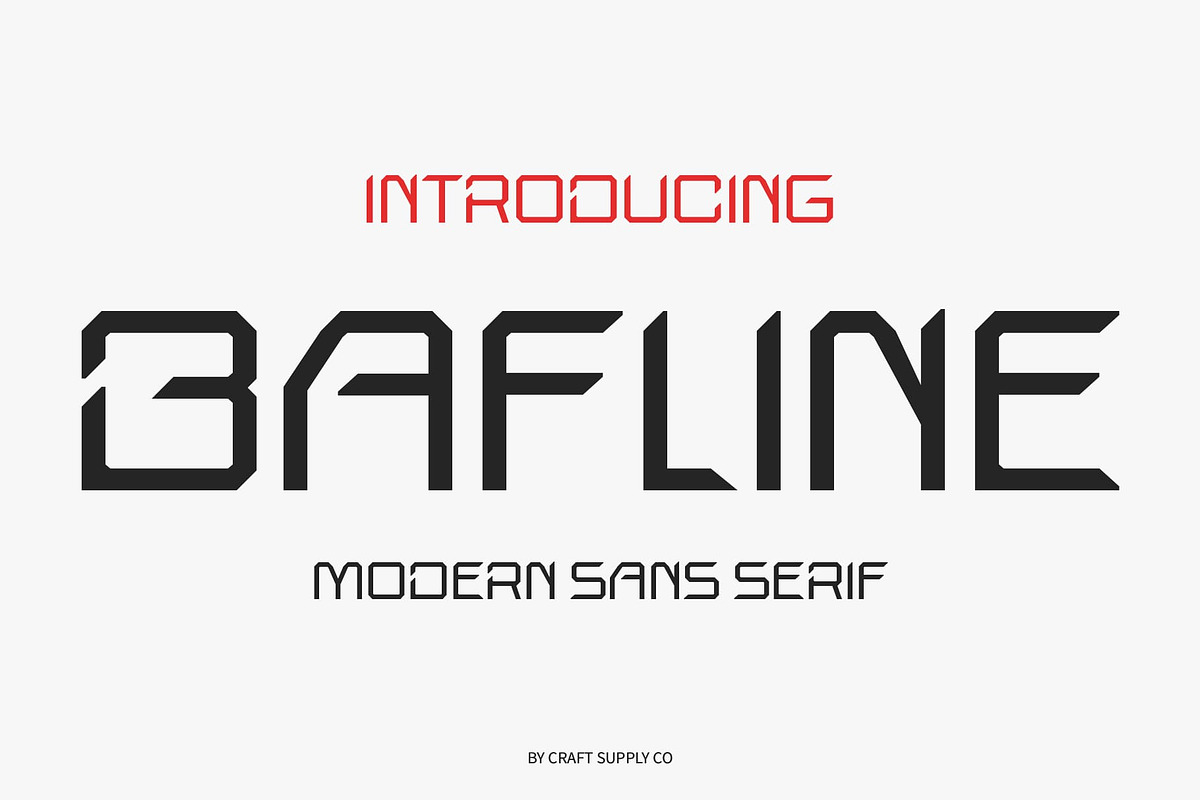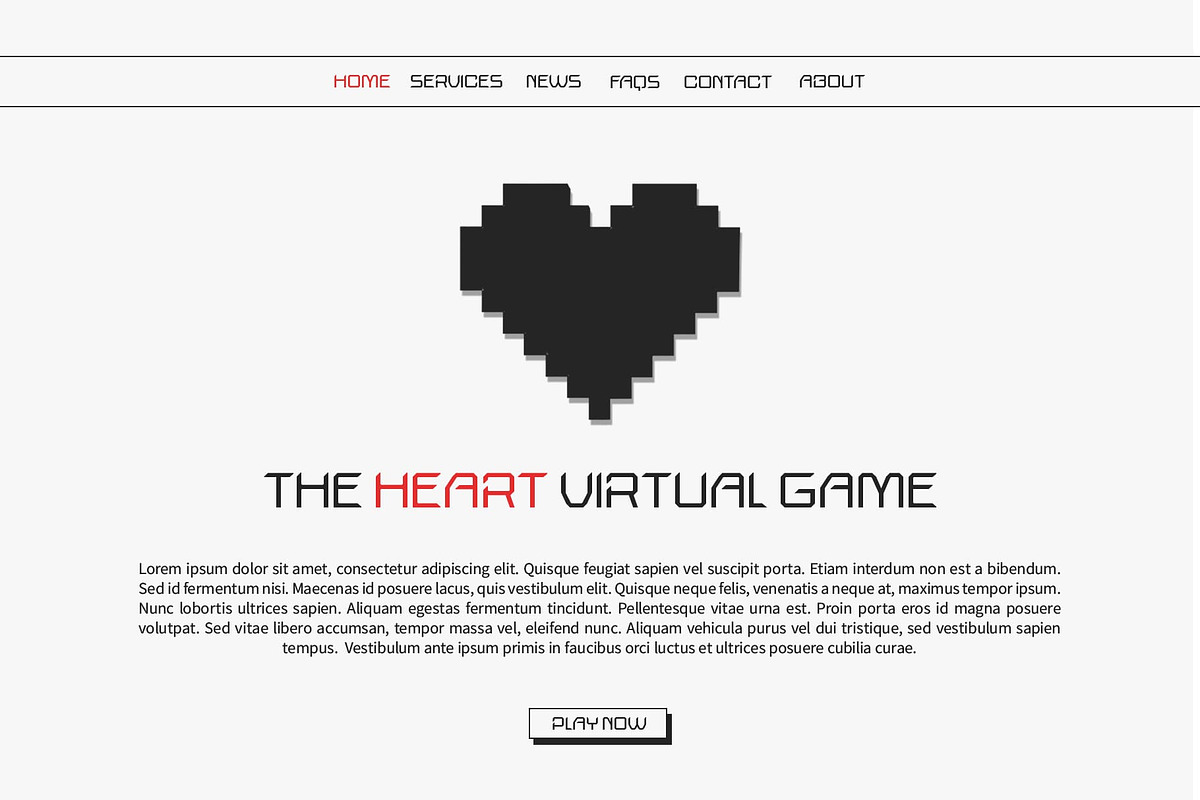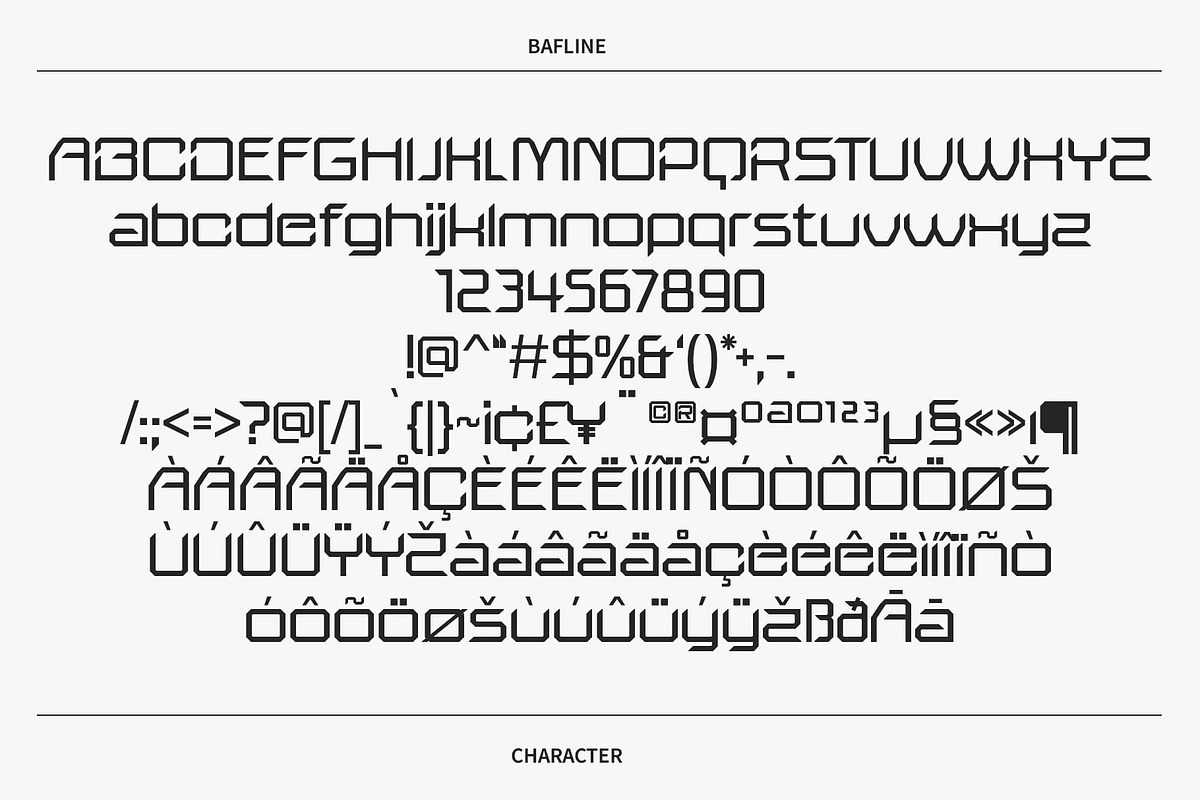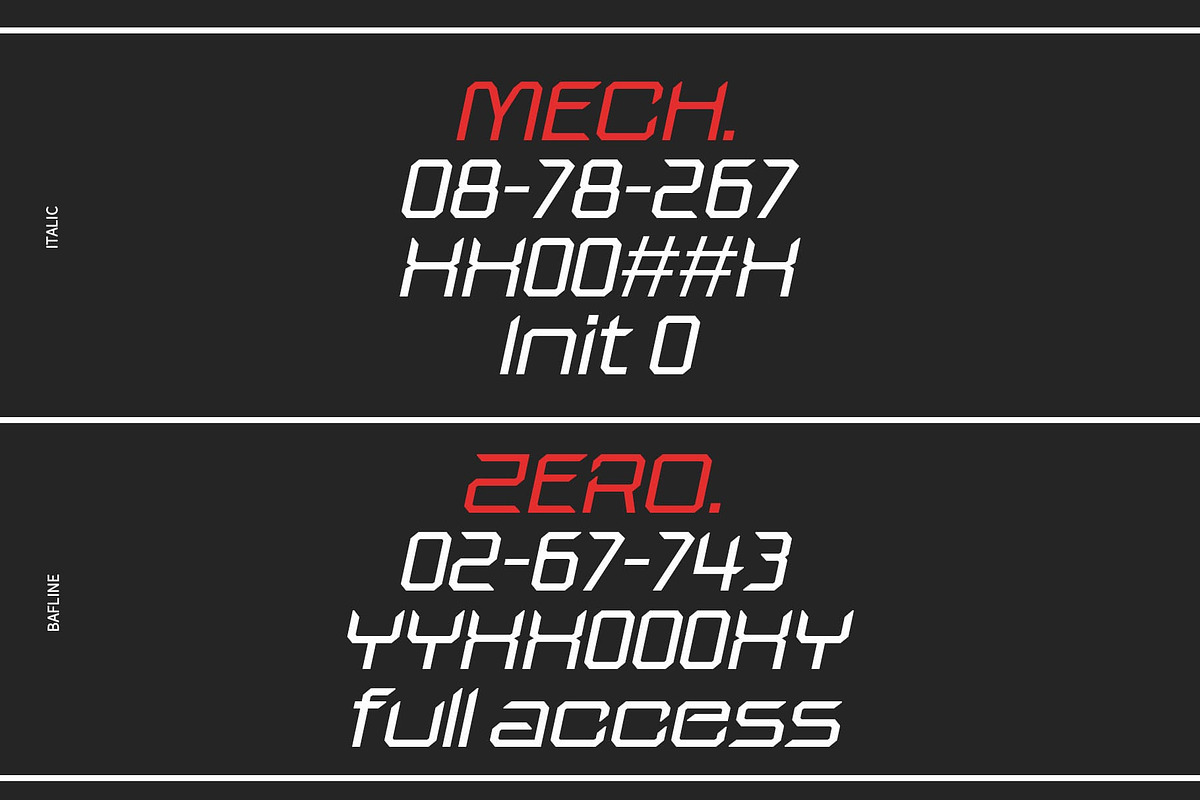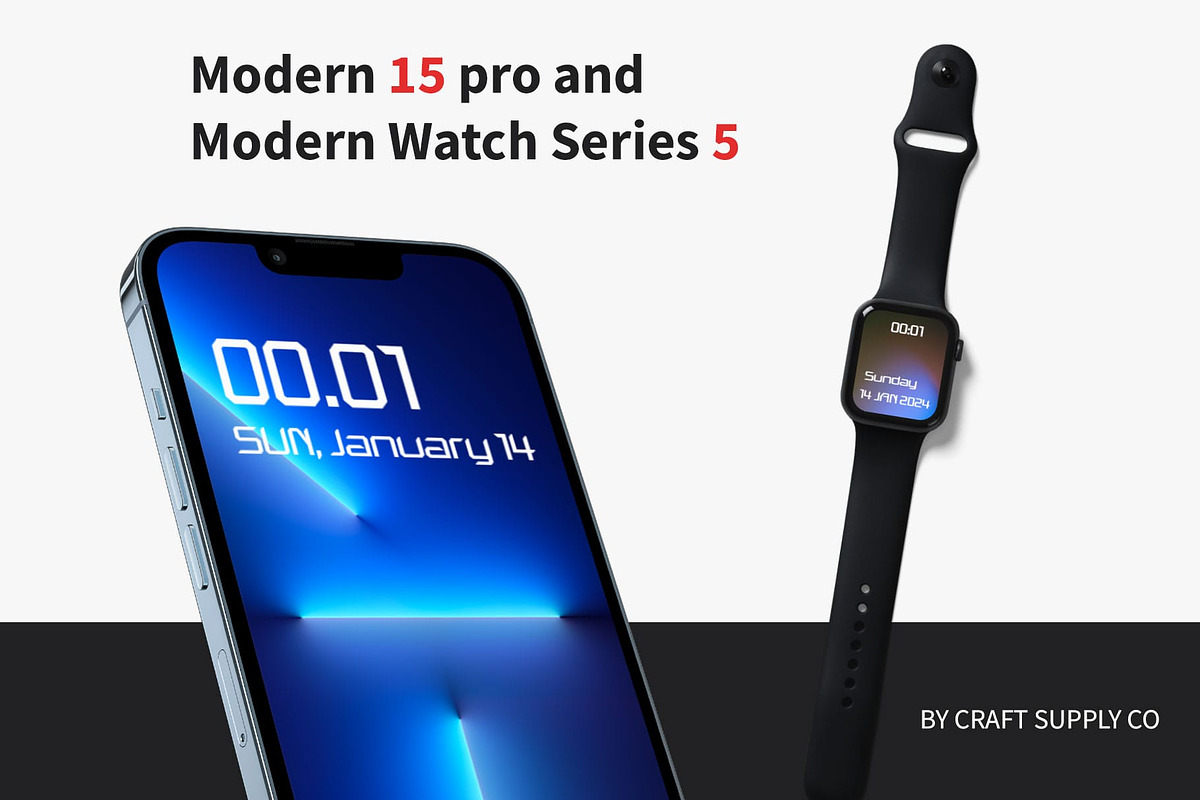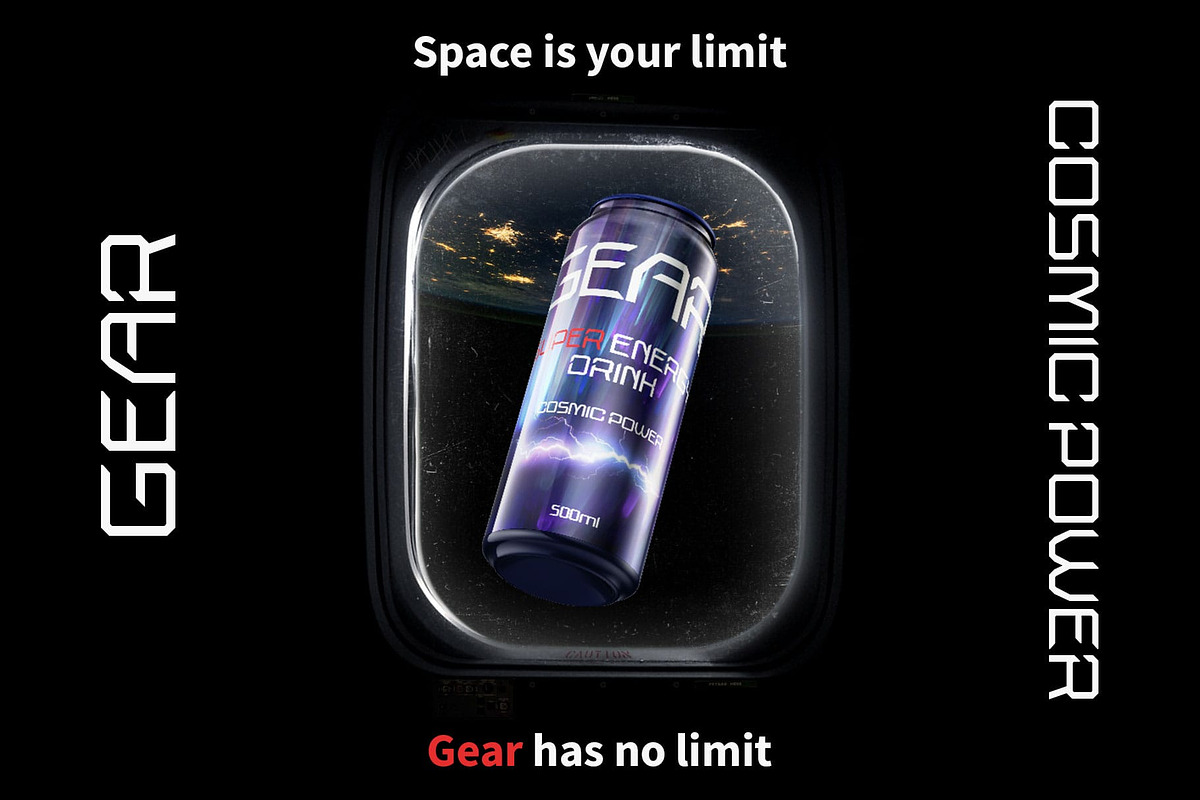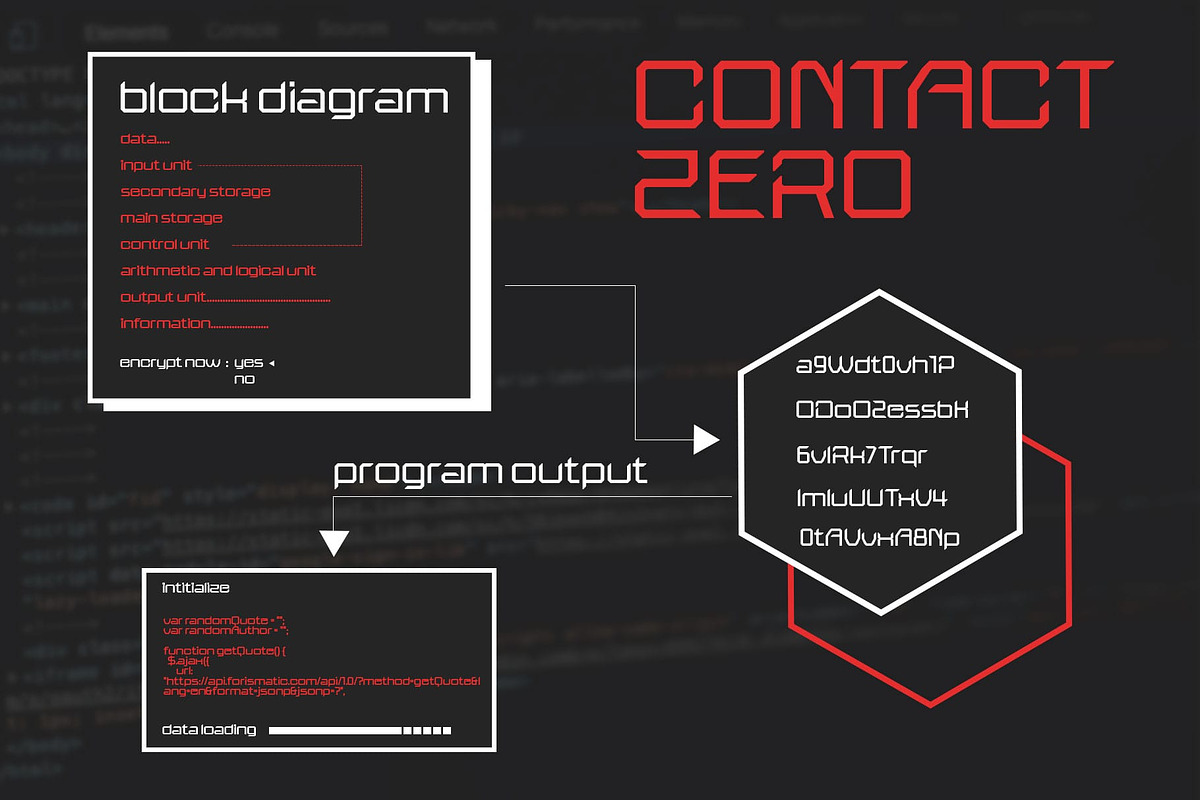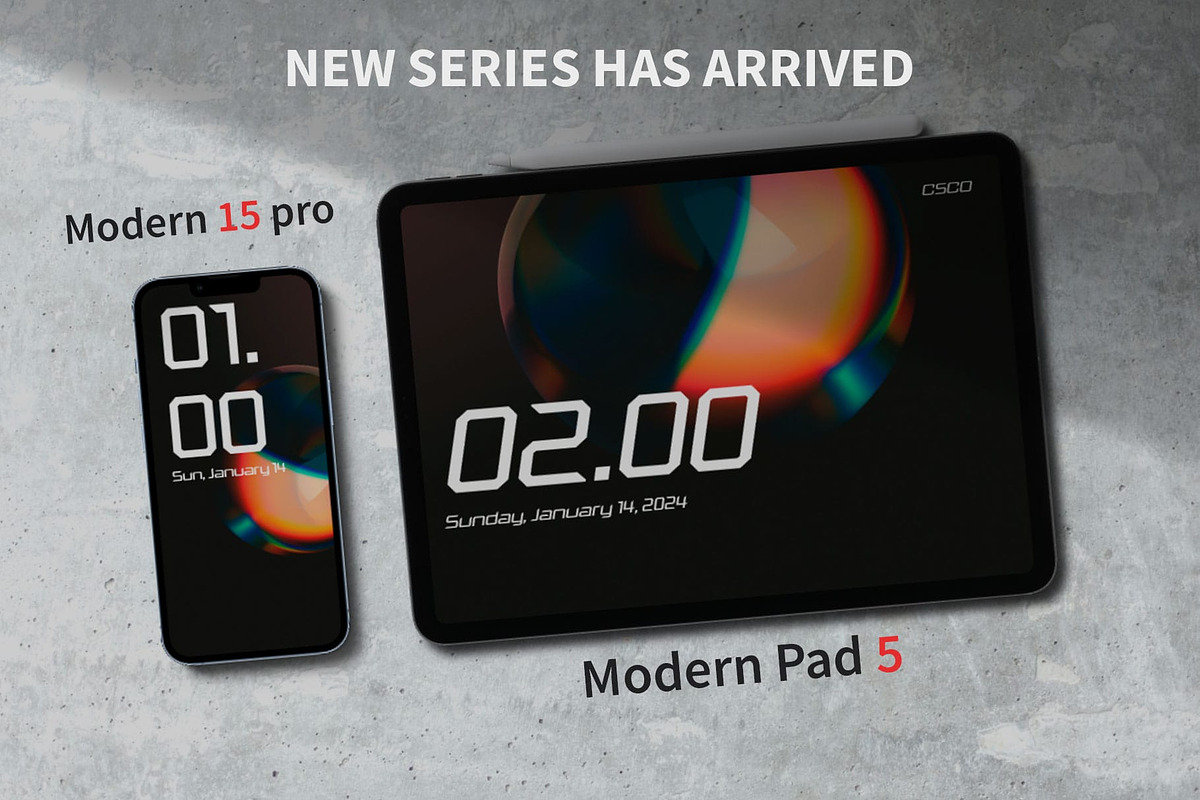
Bafline – Futuristic Sans Serif
Bafline Font: A Glimpse into the Future of Typography
Futuristic Form Bafline, a groundbreaking sans serif font, draws inspiration from the future, featuring a sleek and innovative design that transcends traditional typographic boundaries.
Cutting-Edge Aesthetics In the realm of typography, Bafline stands as a beacon of cutting-edge aesthetics. Its futuristic shapes and contours redefine what’s possible in modern font design.
Versatile Modernity Bafline’s versatility knows no bounds. Whether in digital interfaces, print media, or branding, it effortlessly embodies the essence of contemporary and futuristic design.
Elevate Your Designs with Bafline Step into the future of design with Bafline. Elevate your projects with a font that not only keeps pace with modernity but propels your creative expressions into uncharted territories.
Conclusion Bafline is more than a font; it’s a testament to the limitless potential of design. Embrace the future of typography with Bafline, where innovation meets expression, and creativity knows no bounds.